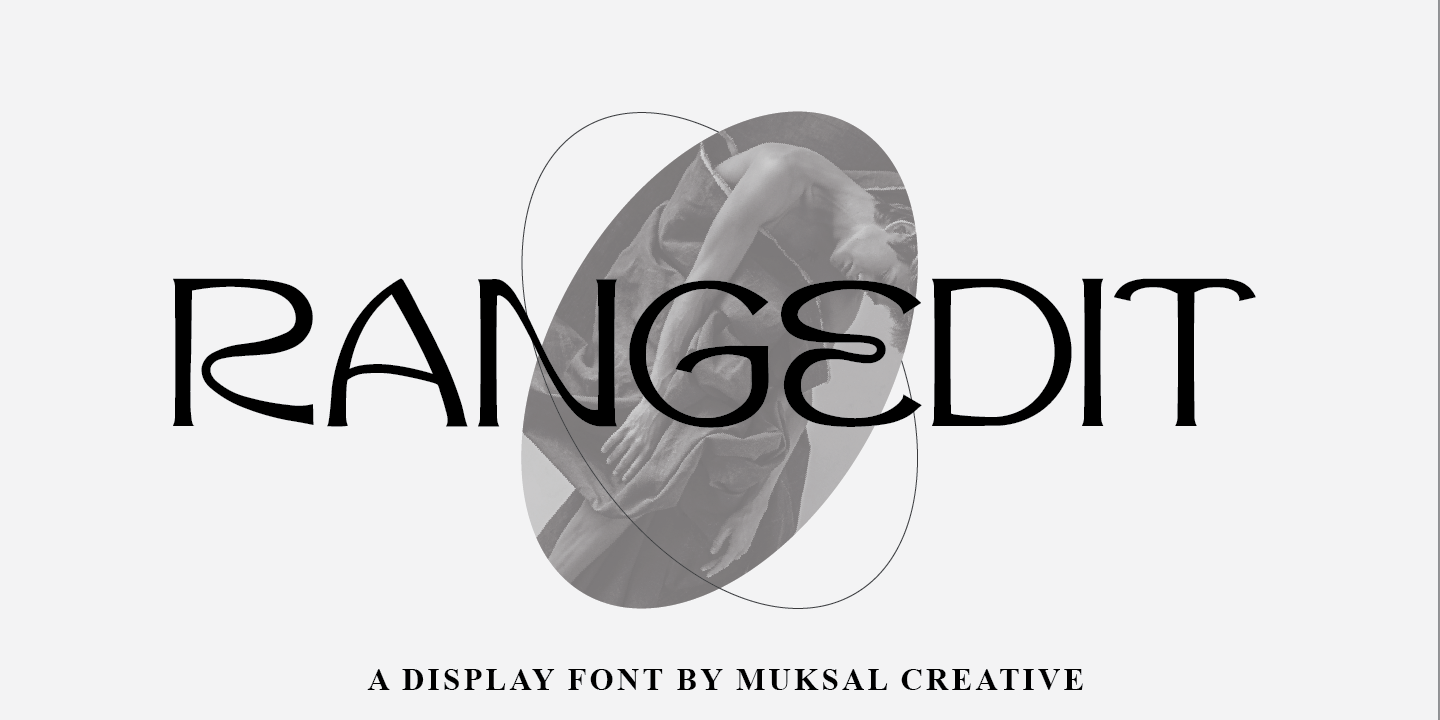
Rangedit Font is perfect for various applications including editorial magazine layouts, publishing house branding, newspaper headline designs, academic journal formatting, literary book covers, content management interfaces, professional writing tools, editorial blog headers, manuscript presentation designs, and sophisticated publishing materials.
What makes Rangedit Font so exciting is its masterful ability to enhance readability and editorial flow through carefully crafted typography that serves both writers and readers with exceptional clarity. This editorial typeface features refined, scholarly letterforms with publishing proportions and editorial details that capture the essence of professional writing and literary excellence. The font's intellectual character and publishing-focused aesthetic make it ideal for brands that want to convey authority, literacy, and editorial sophistication to audiences who value quality writing, academic research, and professional publishing standards.
Rangedit Font family includes multiple weights and styles: Light, Regular, Medium, Bold, Black, Editorial, Condensed, Extended, and professionally crafted Italic variants. Each family member maintains the font's signature editorial quality while offering different levels of visual impact and stylistic flexibility for diverse publishing and academic applications.
The Rangedit Font Free Download provides designers with access to an editorial-inspired typeface that excels in publishing and academic markets. Whether you're creating literary publication identities, designing scholarly presentation materials, or developing professional writing platforms, this font delivers the authoritative aesthetic needed to establish credibility with educated audiences and publishing professionals. Its editorial styling and academic essence make it particularly effective for publishing houses, academic institutions, and professional writing services.
Typography scholars will appreciate the careful balance between readability and authority in Rangedit Font's construction. The font features precisely crafted letterforms with editorial proportions, optimized spacing for extended reading, and carefully calibrated details that ensure excellent legibility while maintaining its scholarly character. From academic journals to literary magazines, this typeface maintains its authority and editorial appeal across all publishing contexts.
For publishing web designers, Rangedit Font provides outstanding performance in editorial digital environments and academic platforms. The font's technical specifications are optimized for reading interfaces and scholarly presentations while preserving the refined, professional edges that define its editorial character. Its versatility makes it suitable for both static publishing content and interactive academic experiences.
Creative professionals working in publishing, academia, editorial services, and literary organizations will find Rangedit Font to be an essential tool for projects requiring authoritative visual communication. The font's ability to convey scholarship, professionalism, and editorial excellence makes it invaluable for brands targeting educated demographics and publishing-focused audiences.
Design agencies specializing in publishing and academic brands appreciate Rangedit Font's versatility in creating memorable scholarly identities.